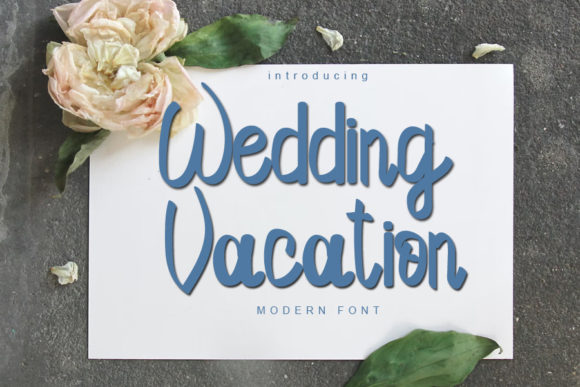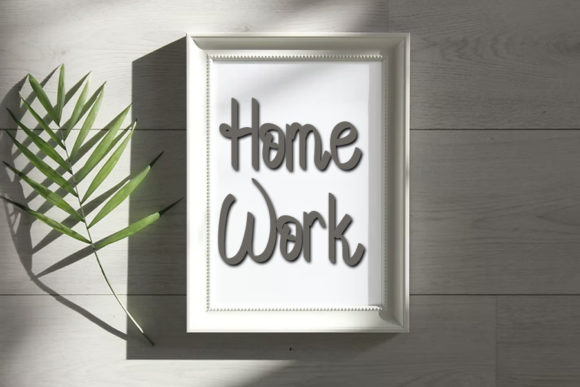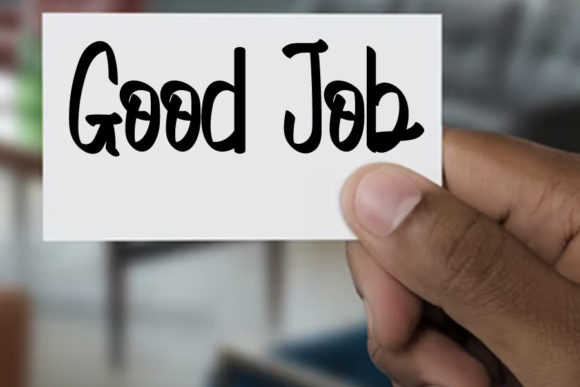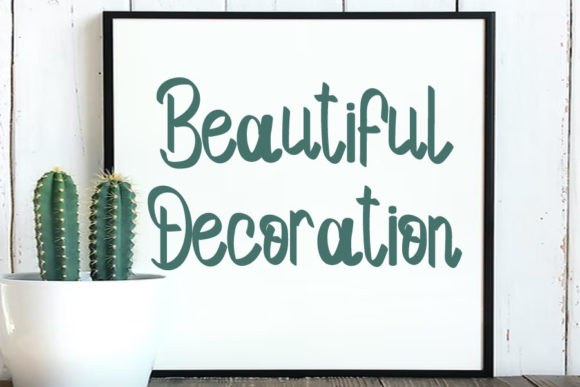
About Wedding Vacation Font
Wedding Vacation is a lovely script font featuring charming, playful characters that seem to dance along the baseline. Add this font to your most creative ideas, and notice how it makes them stand out!